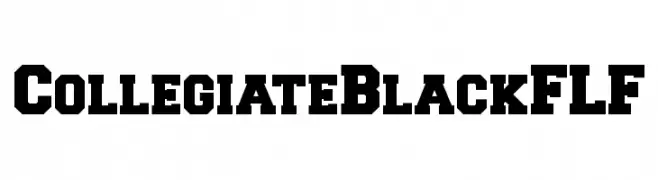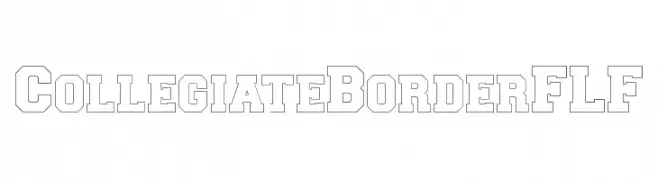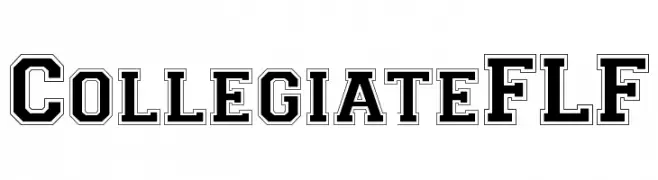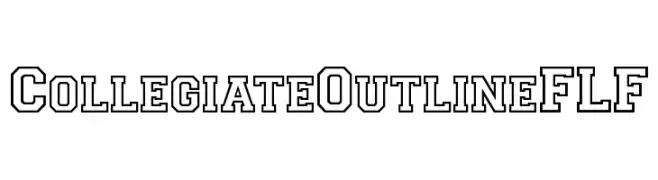
A bold, block-style font reminiscent of traditional collegiate lettering.
A bold, blocky collegiate-style font with outlined characters.
A bold, outlined collegiate-style font with strong, block-like characters.
A bold, collegiate-style font with strong, block-like characters and a modern touch.
A bold, outlined font with a collegiate, varsity style.